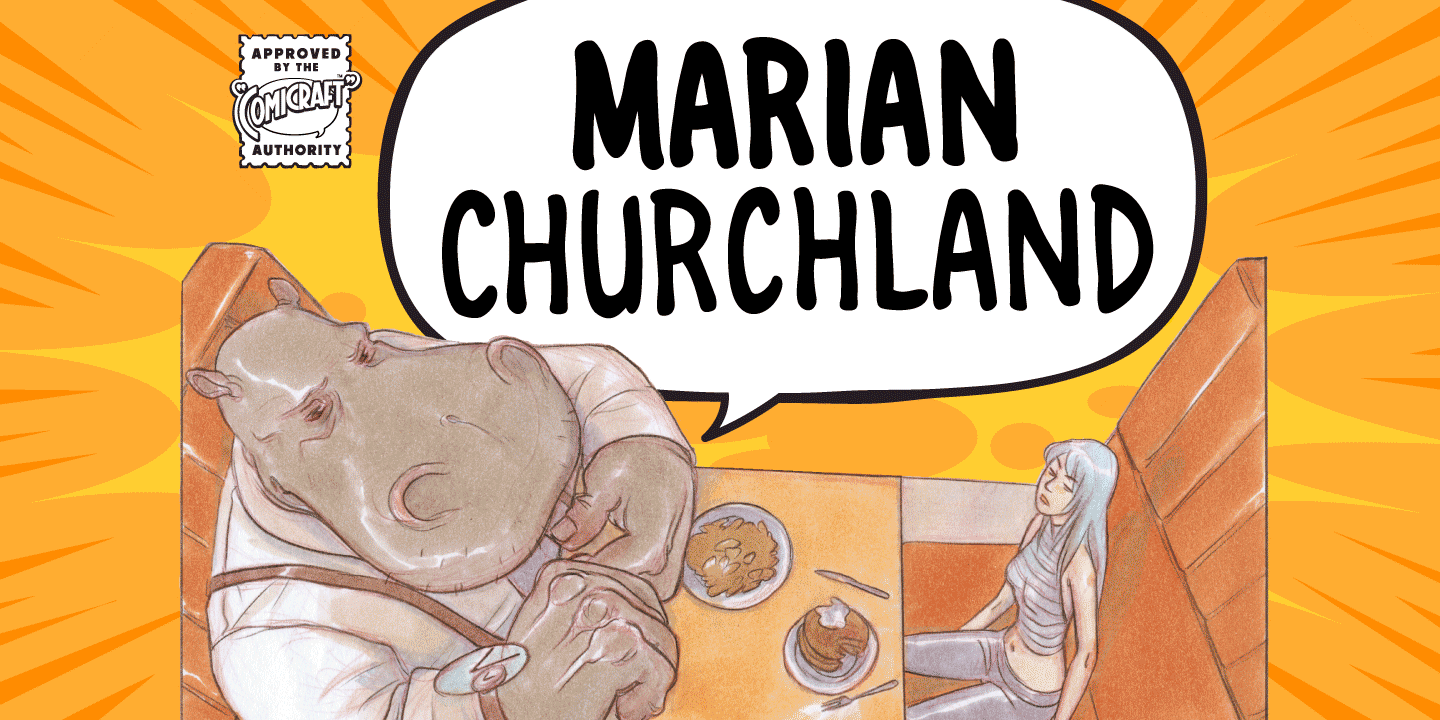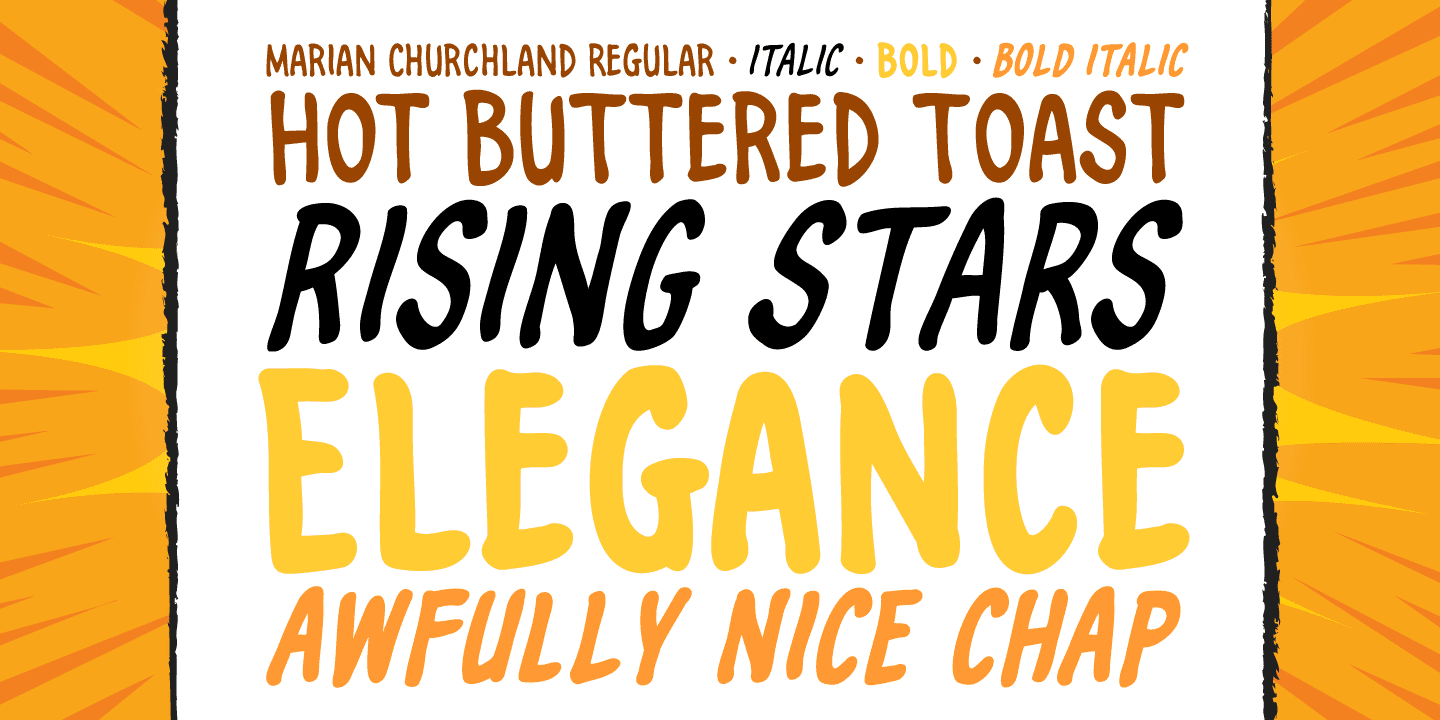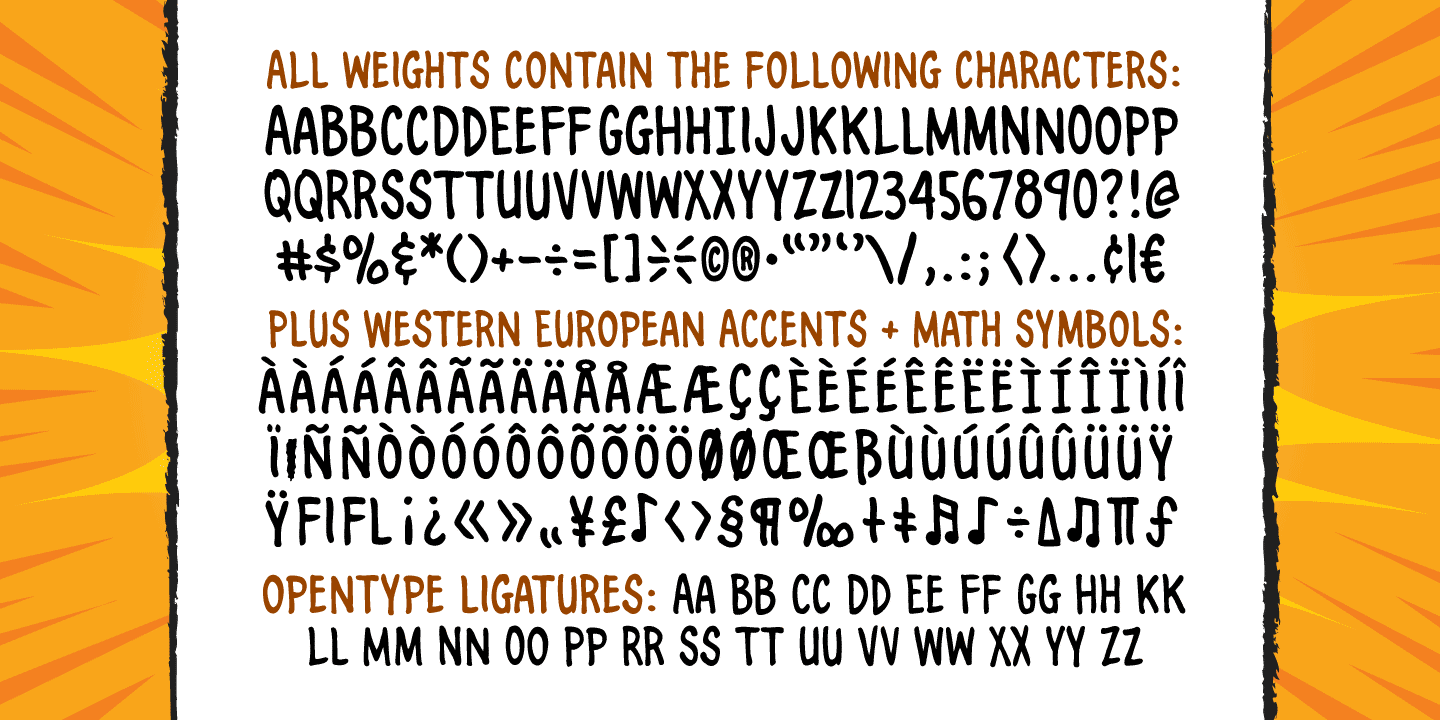
About the Marian Churchland Font
About Marian Churchland Font Family Tall, thin and elegant, Marian Churchland’s fonts are very much like her.. and now available from those awfully nice chaps at Comicraft to allow you to pretend that you are too!Marian Churchland was born in Canada in 1982, and was raised on a strict diet of fine literature and epic fantasy video games.
She has a BA in Interdisciplinary Studies (English Literature and Visual Arts) from the University of British Columbia, and has been doing professional illustration work, including book covers and magazine articles, since she was 17.
Last year, she became the first woman to solo-illustrate a CONAN story, and this year she’s illustrating three issues of ELEPHANTMEN for Image Comics.See the families related to Marian Churchland: Marian Churchland Journal. Designers: John Roshell, Marian ChurchlandPublisher: ComicraftFoundry: ComicraftDesign Owner: ComicraftMyFonts debut: May 6, 2009 Marian Churchland